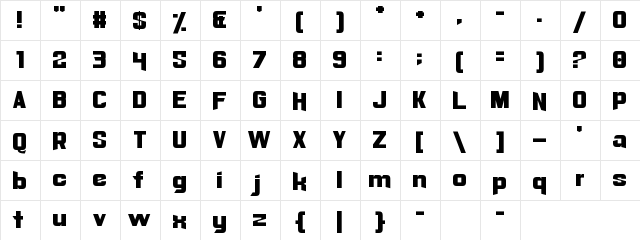
Radaro Regular
Design Context for Radaro Typeface
Radaro is a composed and adaptable typeface that performs quietly and consistently across a wide range of design contexts.
Pro Tip: Pair Radaro with a font of contrasting weight or personality to build a more expressive typographic hierarchy.